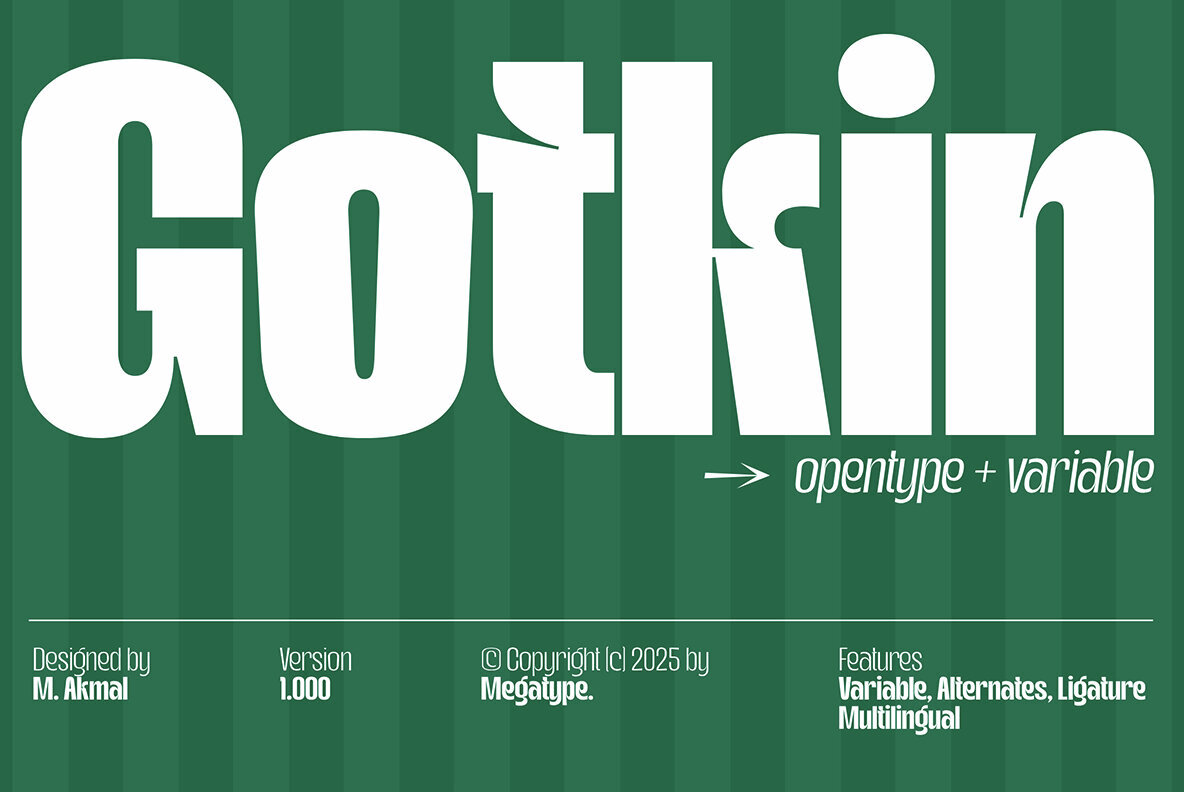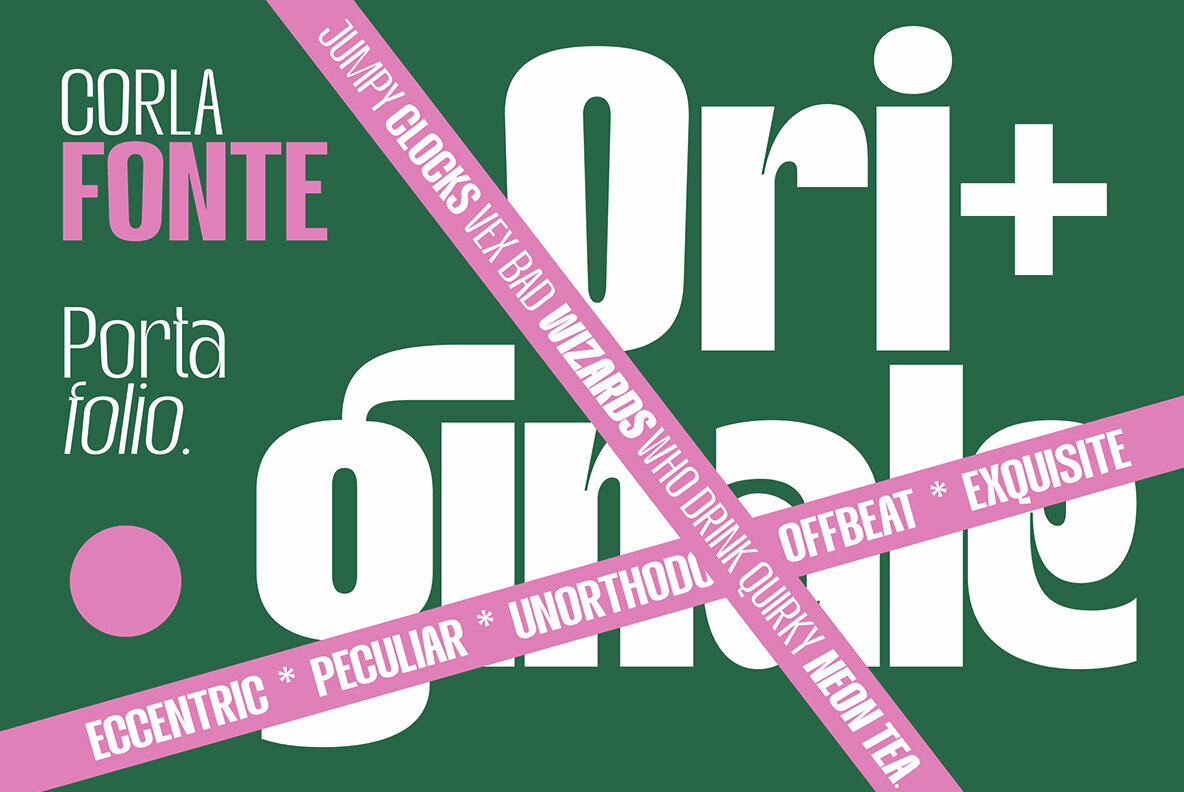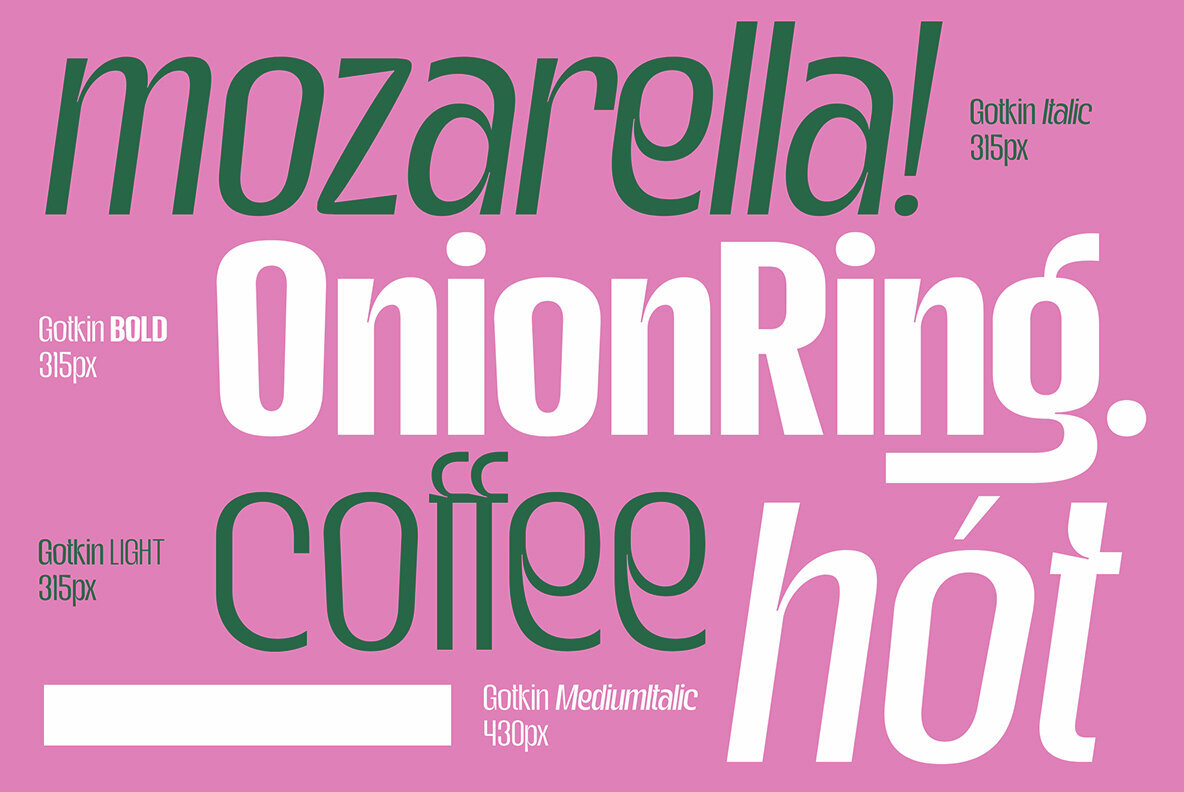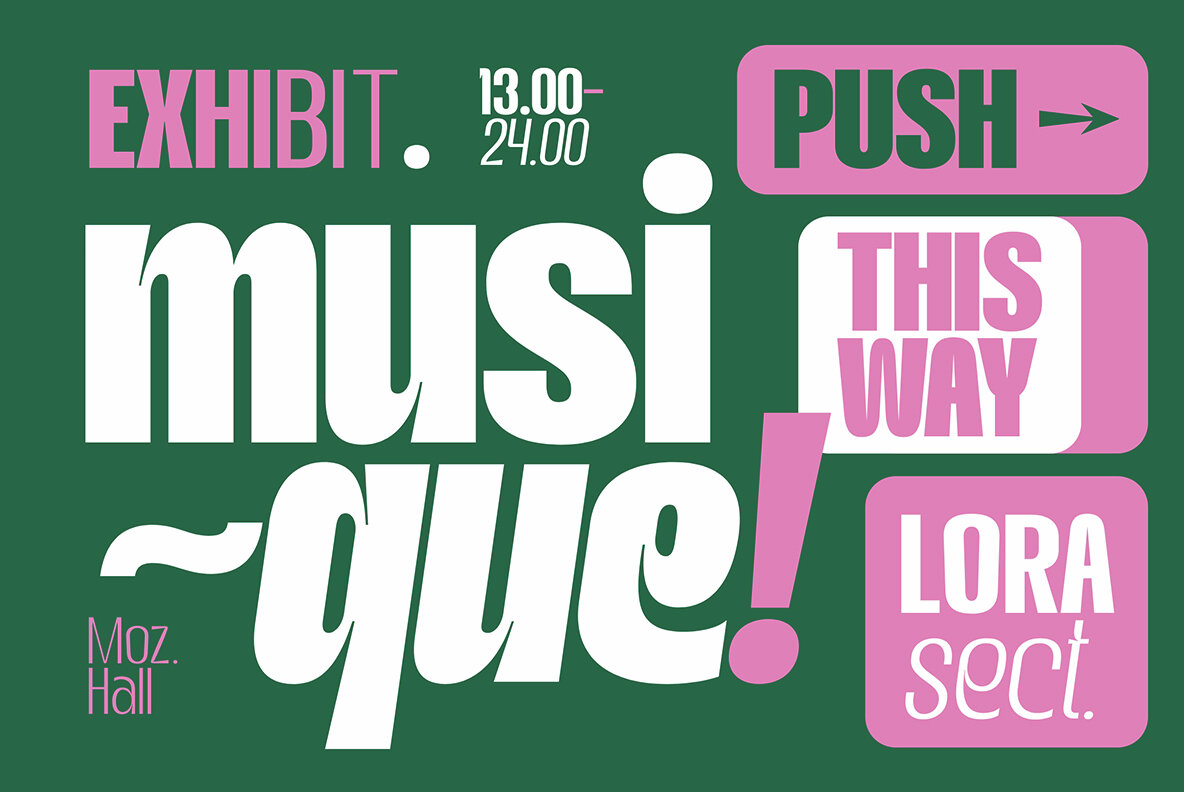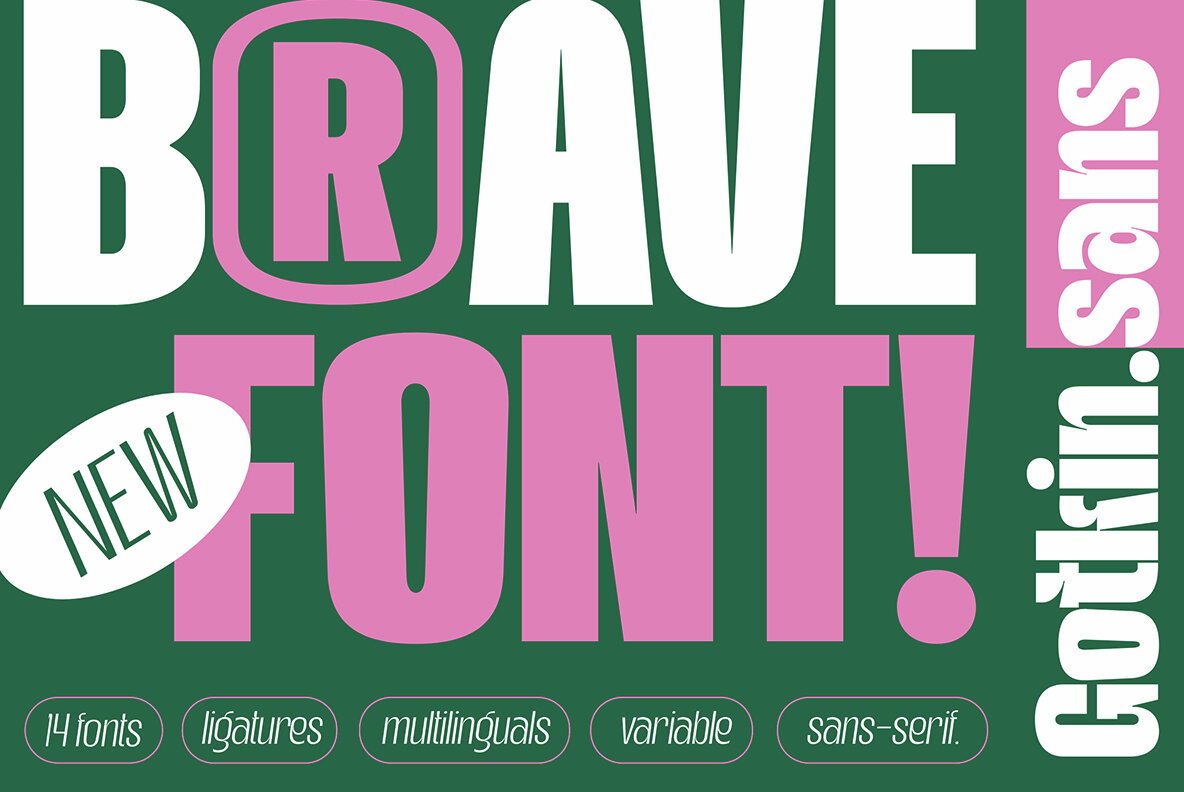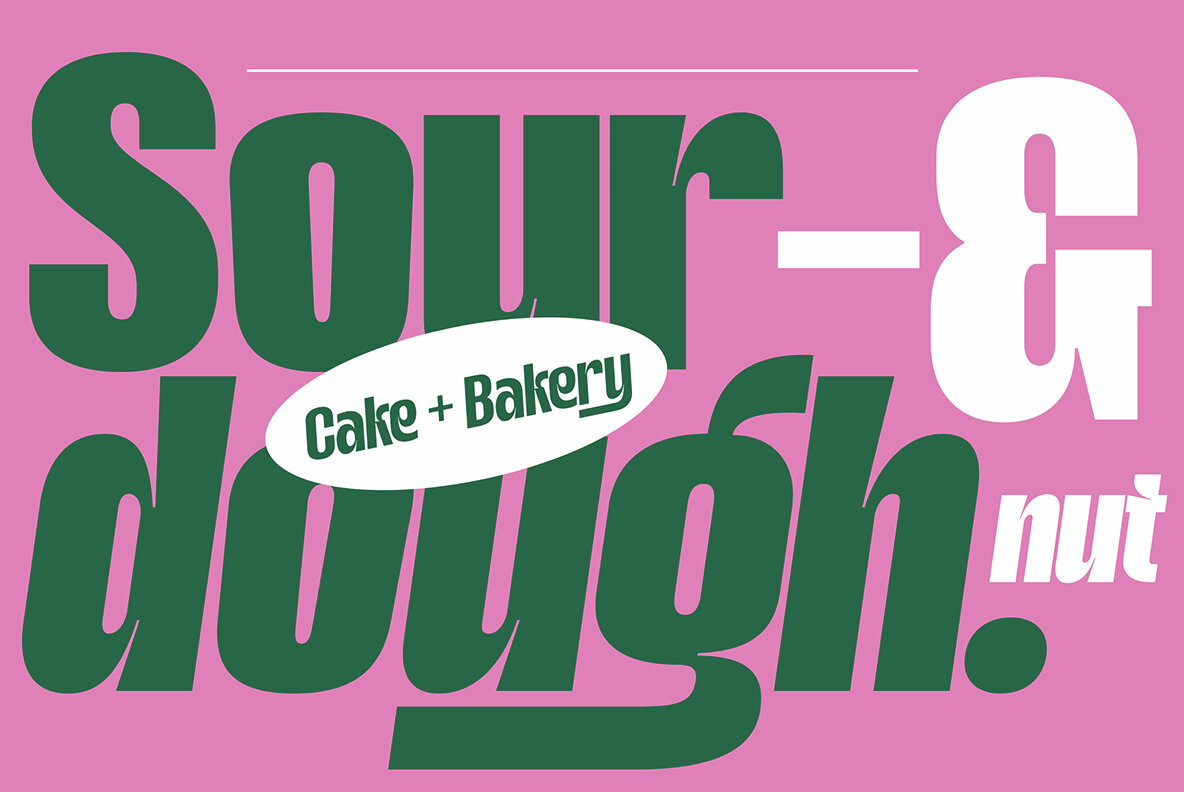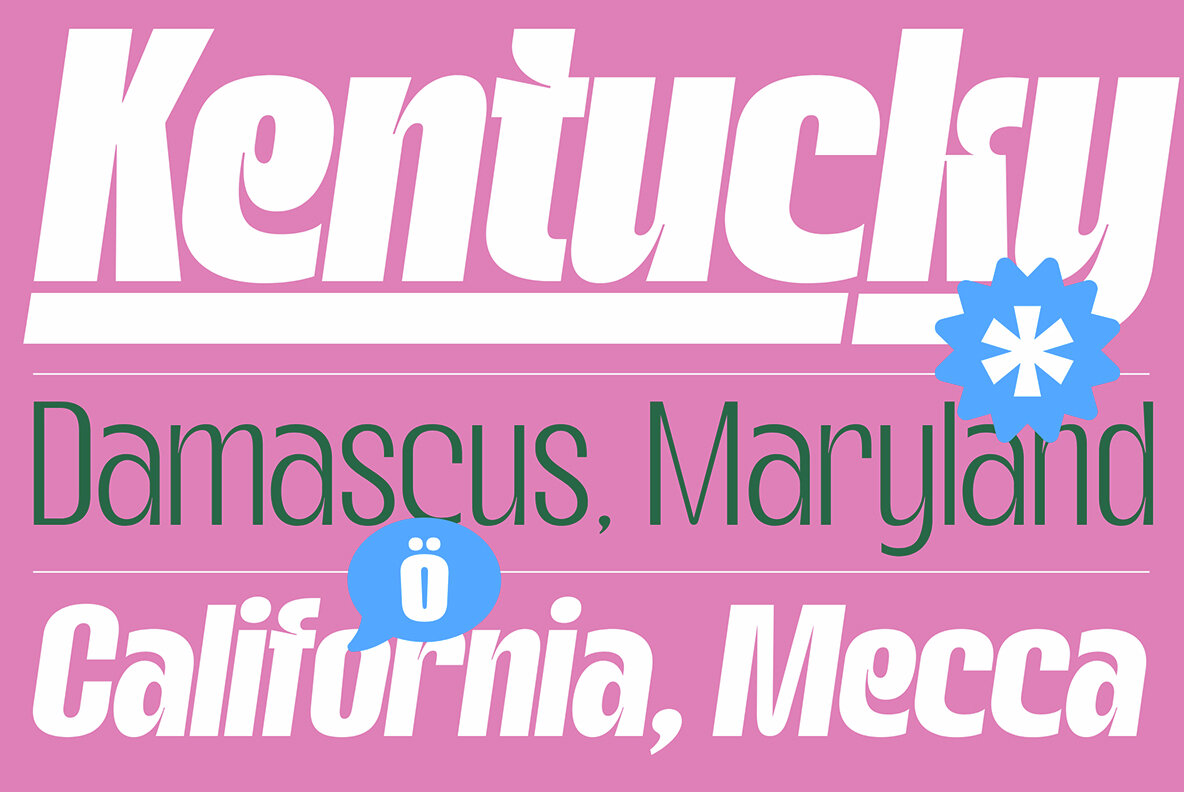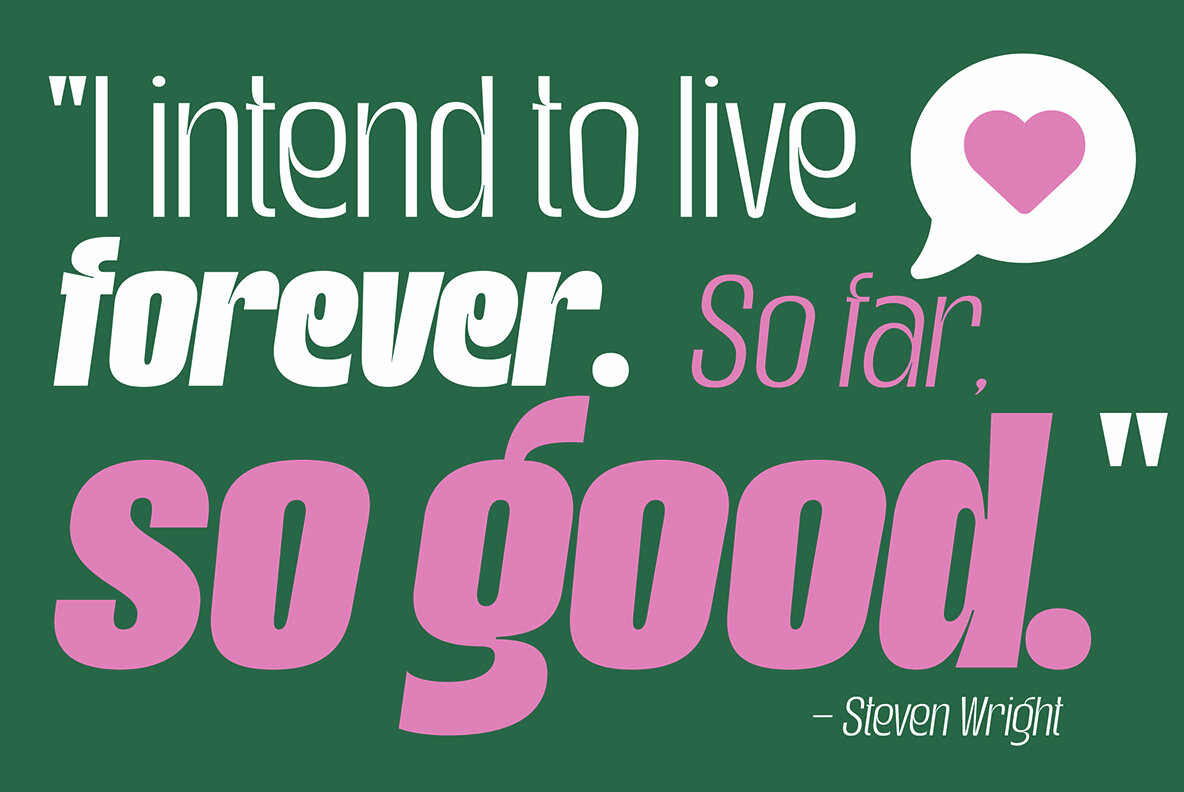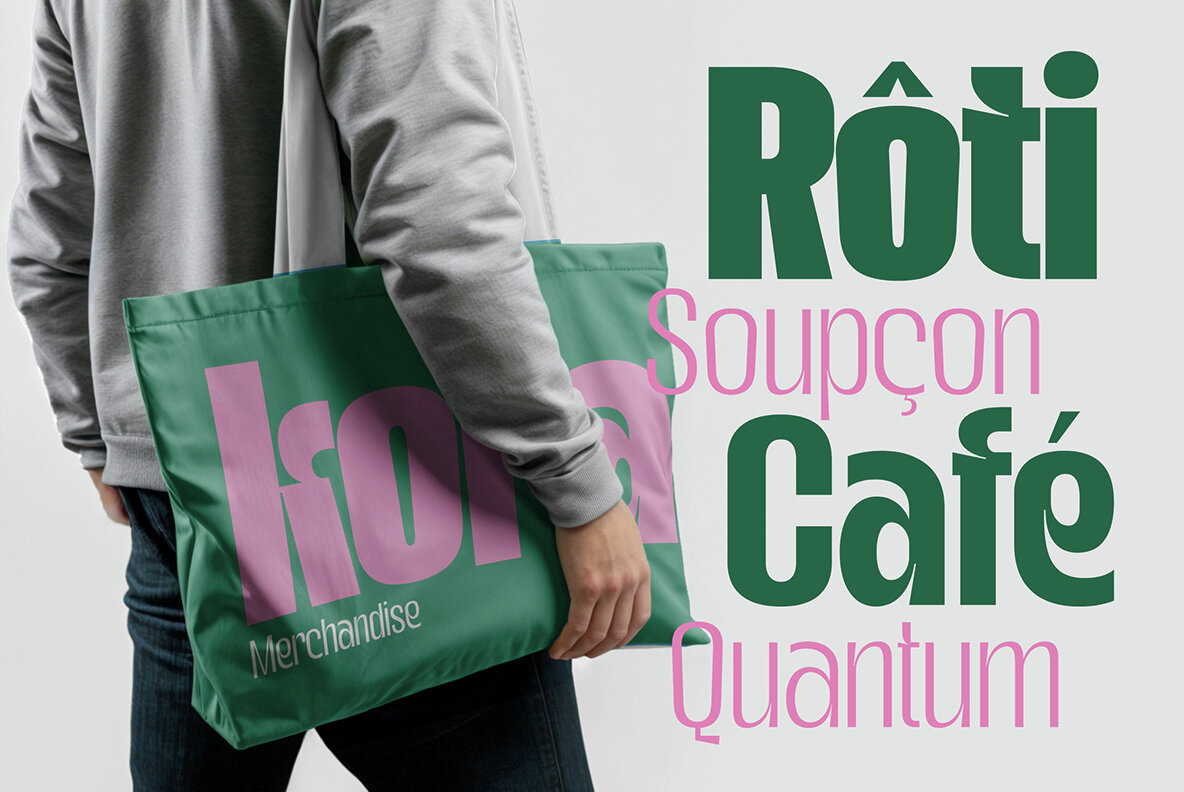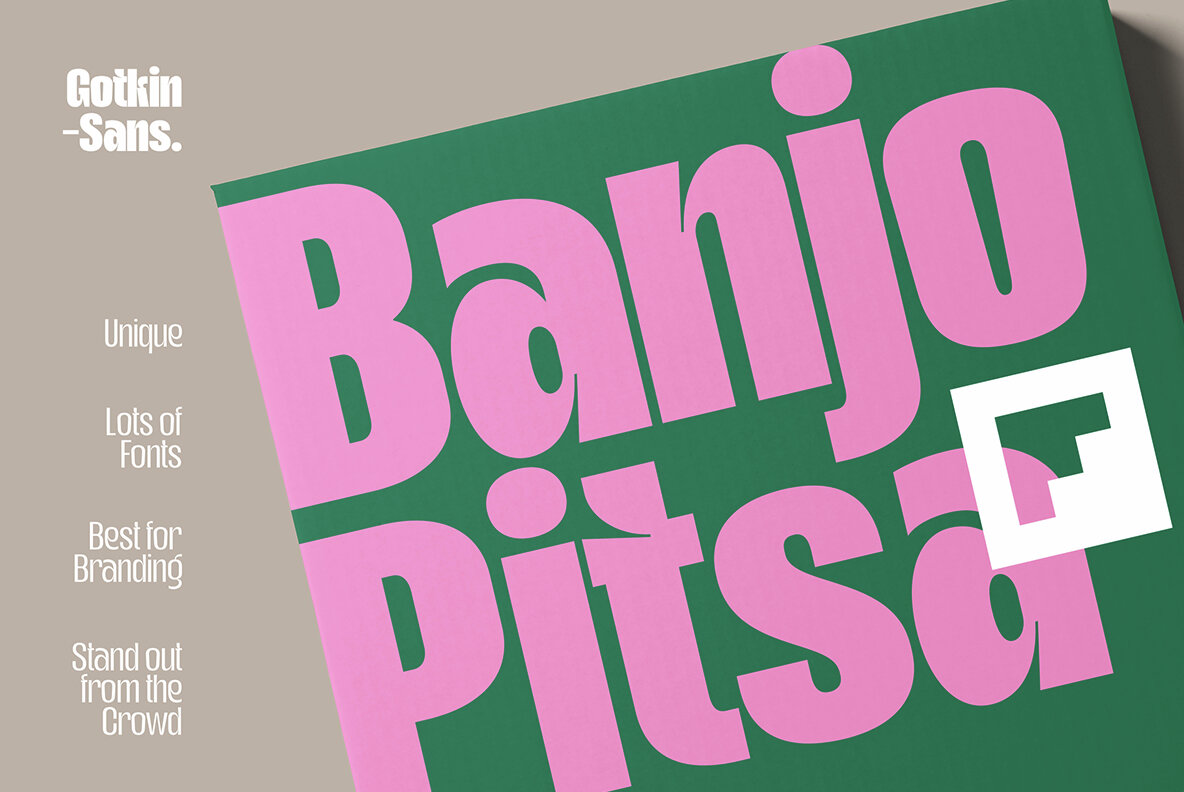
Gotkin Font
Designed to exude contemporary strength and dynamism, Gotkin stands as a robust sans serif font family. Its soft curves paired with geometric boldness offer a warm yet assertive presence. This characteristic makes it suitable for a range of applications, from corporate branding to digital interfaces and editorial designs. Gotkin excels in both display and text settings, ensuring clarity and style whether in headlines, body text, or any branding project. Its clean lines guarantee readability across formats, making it an indispensable tool for professionals aiming for precision and impact.Gotkin: A Sans Serif That Defines Modernism